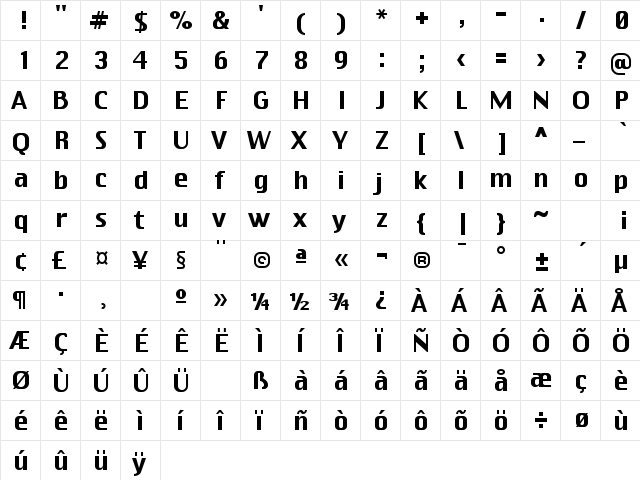
Virtue Regular
Design Context for Virtue Typeface
Virtue takes a measured approach to typography — its balanced proportions and neutral character make it a reliable workhorse for both digital and print work.